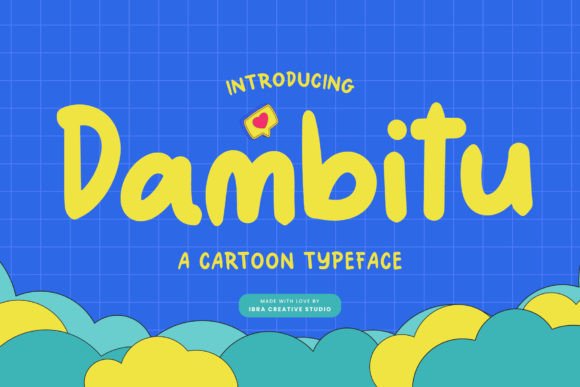
Dambitu Font: A Playful and Whimsical Cartoon Typeface
The Dambitu font is a vibrant and animated typeface that embodies the spirit of playful exuberance and delightful mischief. This whimsical cartoon font is designed to bring a sense of humor, cheerfulness, and childhood nostalgia to any project it’s used in. With its exaggerated curves and lively strokes, the Dambitu font is sure to capture the attention of audiences and leave a lasting impression.
The Design of Dambitu Font
The Dambitu font is a hand-drawn typeface that boasts a unique and distinctive design. Each letter is crafted to be a vibrant character in its own right, with exaggerated curves and lively strokes that dance across the page. The font’s design is reminiscent of classic hand-drawn cartoons, with a playful spirit that’s sure to evoke memories of childhood favorites.
The Dambitu font’s design is characterized by its:
- Exaggerated curves: The font features bold, sweeping curves that give it a playful and dynamic feel.
- Lively strokes: The font’s strokes are confident and expressive, with a sense of movement and energy.
- Hand-drawn feel: The font’s hand-drawn design gives it a unique, human touch that’s perfect for projects that require a personal and playful feel.
The Uses of Dambitu Font
The Dambitu font is a versatile typeface that can be used in a wide range of projects, from:
- Children’s books and educational materials: The font’s playful and whimsical design makes it perfect for projects aimed at children.
- Advertising and marketing campaigns: The font’s bold and attention-grabbing design makes it ideal for projects that require a strong visual impact.
- Packaging and branding: The font’s unique and distinctive design makes it perfect for projects that require a memorable and recognizable brand identity.
- Digital media and animation: The font’s animated and playful design makes it well-suited for digital projects, such as animations, videos, and video games.
The Benefits of Using Dambitu Font
The Dambitu font offers a range of benefits for designers and project creators, including:
- Instant recognition: The font’s unique and distinctive design makes it instantly recognizable, ensuring that your project stands out from the crowd.
- Emotional connection: The font’s playful and whimsical design helps to create an emotional connection with audiences, making your project more relatable and engaging.
- Flexibility: The font’s versatility makes it suitable for use in a wide range of projects, from children’s books to advertising campaigns.
- Time-saving: The font’s pre-designed characters and glyphs save designers time and effort, allowing them to focus on other aspects of their project.
How to Use Dambitu Font
The Dambitu font is a unique and versatile typeface that’s perfect for projects that require a playful and whimsical touch. With its exaggerated curves, lively strokes, and hand-drawn feel, this font is sure to capture the attention of audiences and leave a lasting impression. Whether you’re working on a children’s book, an advertising campaign, or a digital project, the Dambitu font is a great choice for anyone looking to add a touch of humor, cheerfulness, and childhood nostalgia to their work.
- What is the Dambitu font?: The Dambitu font is a whimsical cartoon typeface that’s designed to bring a sense of humor, cheerfulness, and childhood nostalgia to any project.
- What is the Dambitu font used for?: The font can be used in a wide range of projects, from children’s books and educational materials to advertising and marketing campaigns.
- Is the Dambitu font easy to read?: Yes, the font is designed to be easy to read, even at smaller sizes.